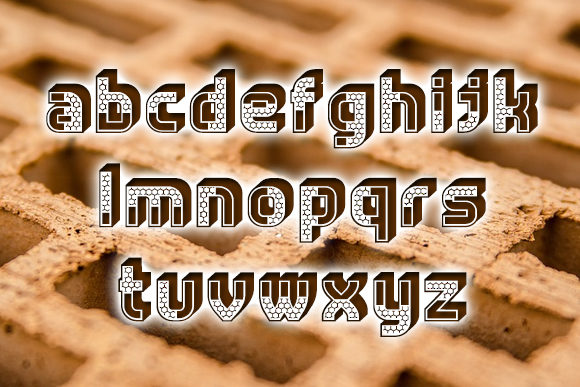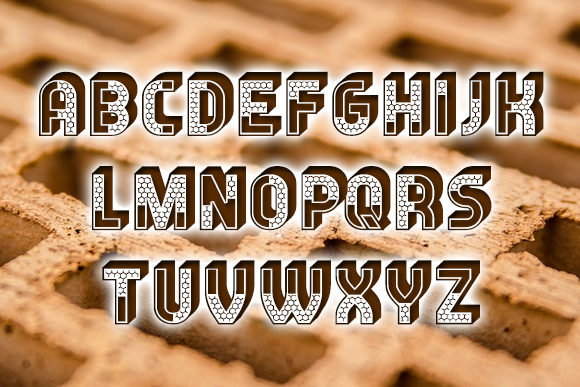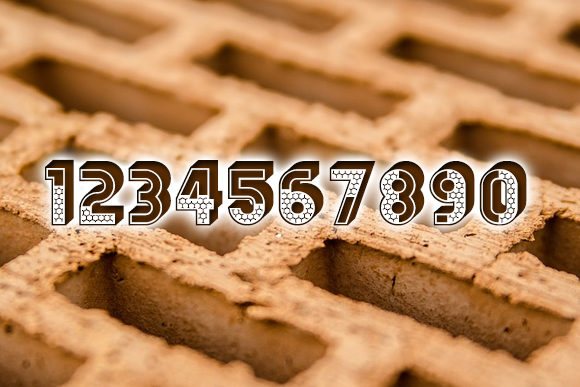
Introducing Builder Font: The Bold and Unique Decorative Font to Elevate Your Creative Projects
Are you tired of using the same old fonts for your creative projects? Do you want to make your designs stand out from the crowd? Look no further than Builder Font, a bold and unique decorative font that’s sure to take your work to the next level. In this article, we’ll explore the features and benefits of Builder Font, and show you how to incorporate it into your design workflow.
What is Builder Font?
Builder Font is a decorative font that’s designed to add a touch of personality to your creative projects. With its bold and unique style, it’s perfect for designers, crafters, and anyone looking to make a statement with their typography. Whether you’re working on a logo, brochure, or social media graphic, Builder Font is sure to turn heads.
Key Features of Builder Font
- Bold and Unique Style: Builder Font features a bold and unique style that’s sure to grab attention. Its distinctive letterforms and decorative elements make it perfect for creating eye-catching headlines and titles.
- High-Quality Design: Builder Font is designed with high-quality craftsmanship in mind. Its crisp and clean lines ensure that it looks great at any size, from small captions to large headlines.
- Versatile: Builder Font is versatile and can be used for a wide range of creative projects, from logos and branding to social media graphics and more.
Benefits of Using Builder Font
So why should you use Builder Font for your creative projects? Here are just a few benefits:
- Adds Personality to Your Designs: Builder Font adds a touch of personality to your designs, making them more engaging and memorable.
- Stand Out from the Crowd: With its bold and unique style, Builder Font helps your designs stand out from the crowd and grab attention.
- Enhances Brand Identity: Builder Font can help enhance your brand identity by adding a distinctive touch to your typography.
- Easy to Read: Despite its bold style, Builder Font is easy to read, making it perfect for use in headlines, titles, and other display text.
How to Use Builder Font in Your Designs
Using Builder Font in your designs is easy. Here are a few tips to get you started:
- Use it as a Headline Font: Builder Font is perfect for use as a headline font, adding a bold and eye-catching touch to your titles and headings.
- Pair it with Other Fonts: Builder Font can be paired with other fonts to create a unique and visually appealing typography combination.
- Experiment with Different Sizes: Builder Font looks great at any size, so don’t be afraid to experiment with different sizes and styles to find the one that works best for your design.
In conclusion, Builder Font is a bold and unique decorative font that’s perfect for designers and crafters looking to add a touch of personality to their creative projects. With its high-quality design, ease of use, and versatility, Builder Font is sure to become a go-to font in your design workflow. So why wait? Download Builder Font today and start creating stunning designs that stand out from the crowd!